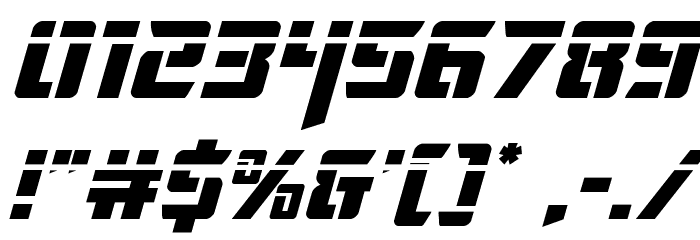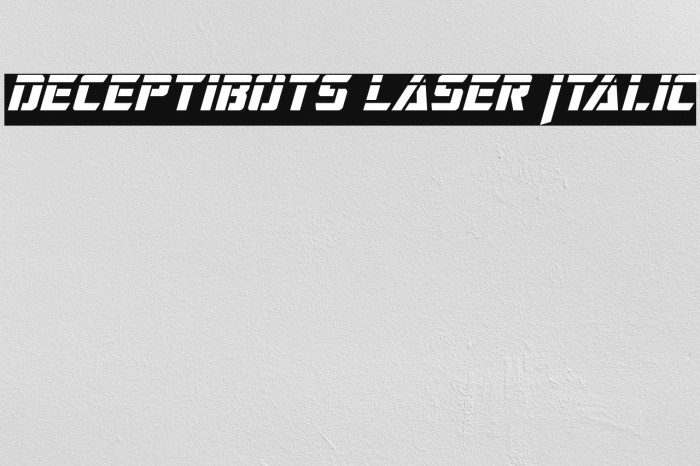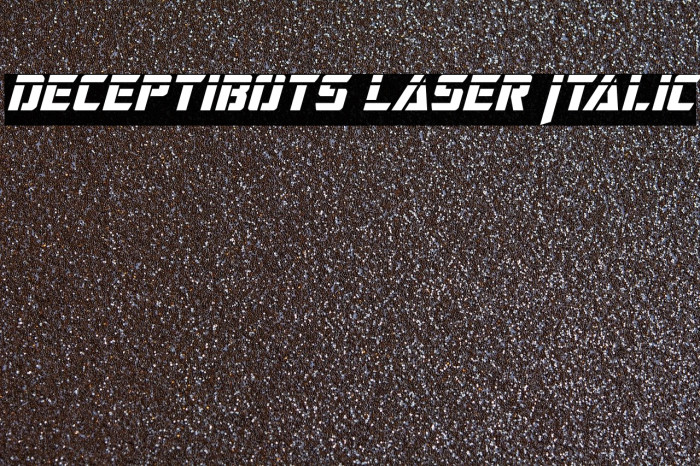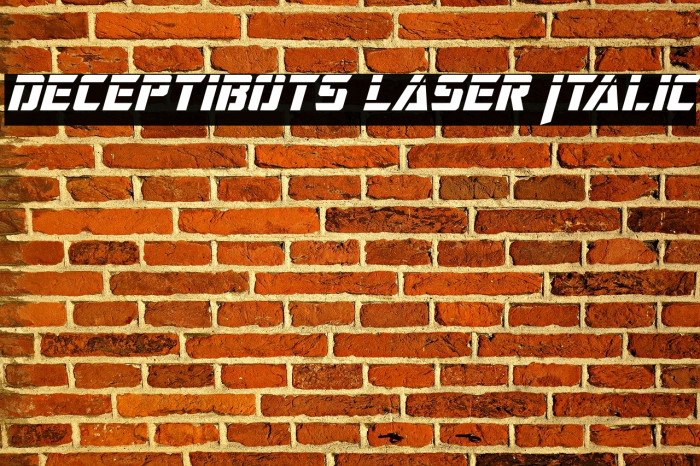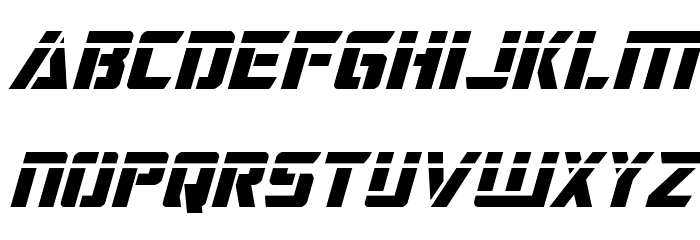
Deceptibots Laser Italic Font
This font features a futuristic and angular design, characterized by sharp edges and a slanted, italicized style. The uppercase and lowercase letters share a consistent geometric form, with each character displaying a distinct, bold presence. The numbers and special characters maintain the same angular aesthetic, contributing to a cohesive and striking visual identity. The font's design suggests a high-tech or sci-fi theme, making it ideal for projects that require a modern and dynamic look.
A futuristic, angular italic font with a bold, geometric style.
• Proposed Projects: Ideal for sci-fi themed posters, video game titles, technology branding, and futuristic event flyers.
• Category: Decorative/Display
• Bold: Yes
• Italic: Yes
• Weight: Bold
• Width: Normal
• Character Spacing: Normal
• Contrast: Low
• Overall Style: Futuristic
• Use Case: Headlines, Logos, Posters